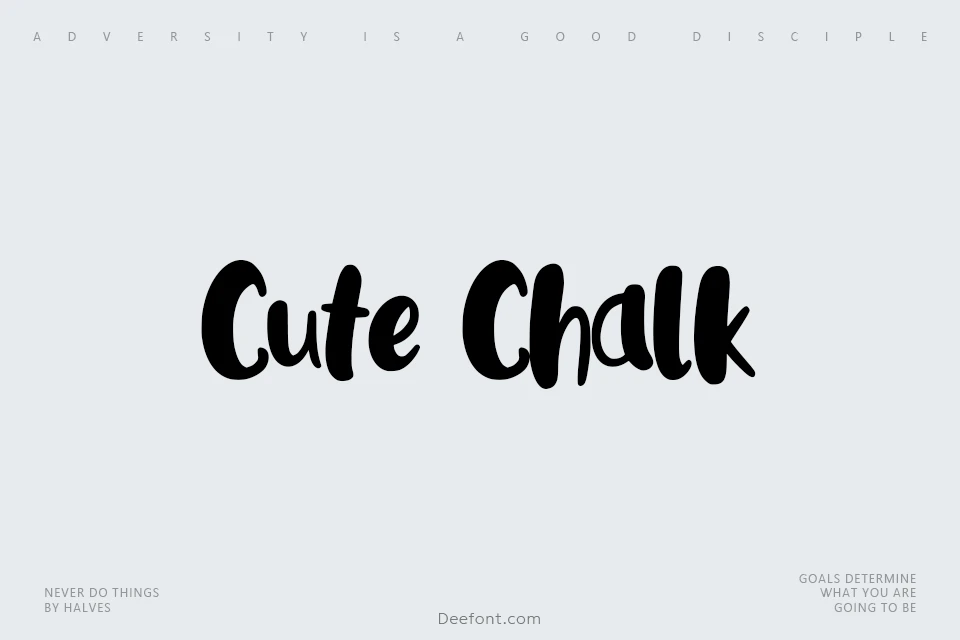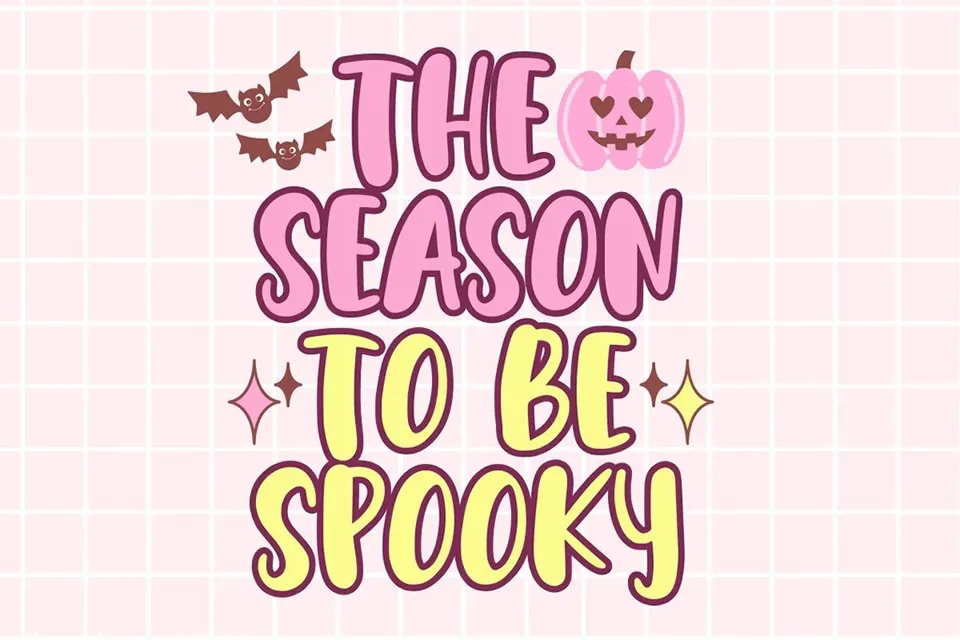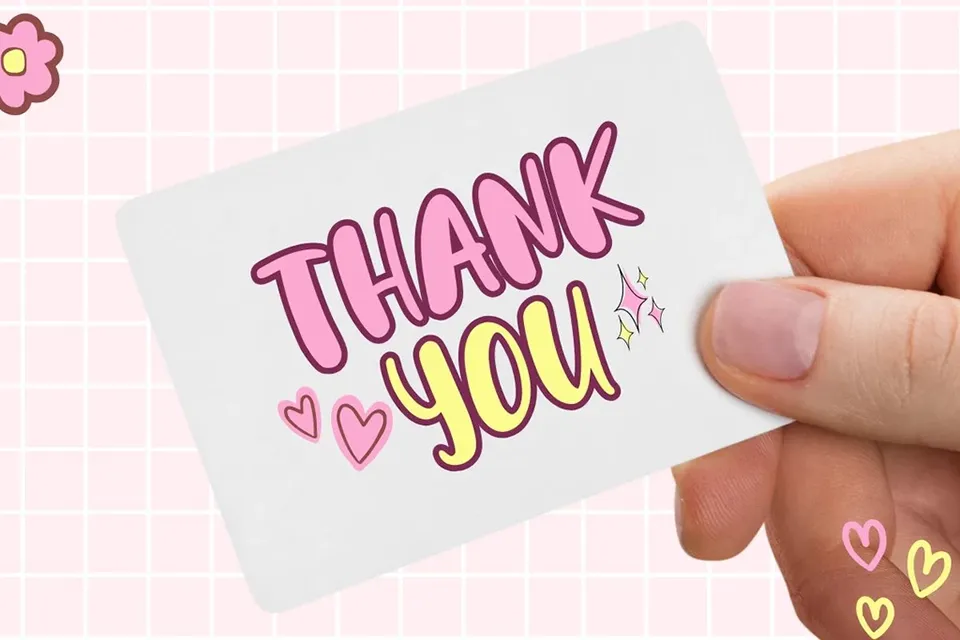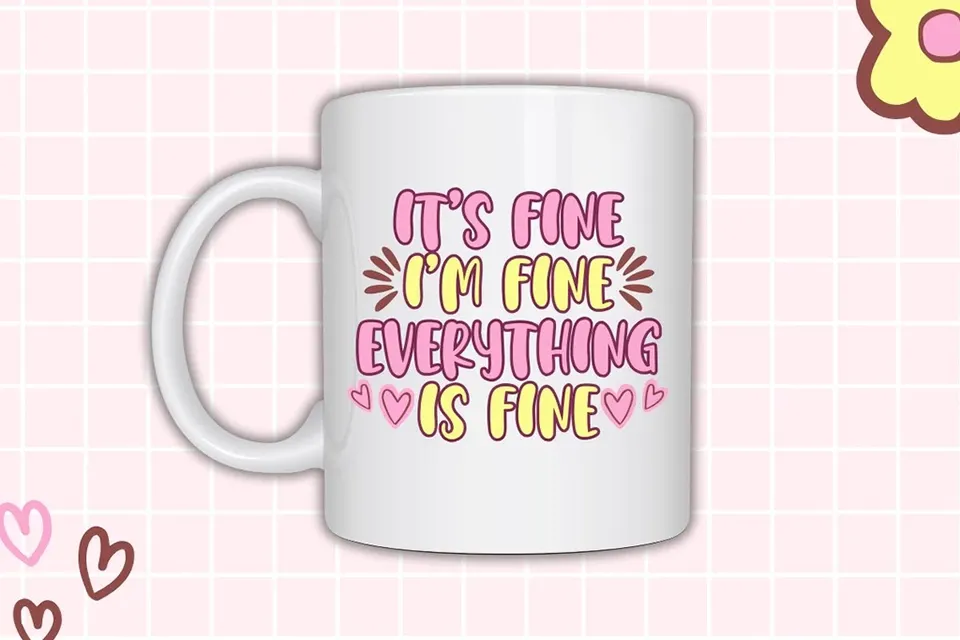
Cute Chalk Font
Cute Chalk Display Font is a childish, easy-to-read handwritten display font that conveys impeccable friendliness. Its playful and whimsical style makes it perfect for crafts, digital designs, and any project that needs a touch of cuteness and fun.